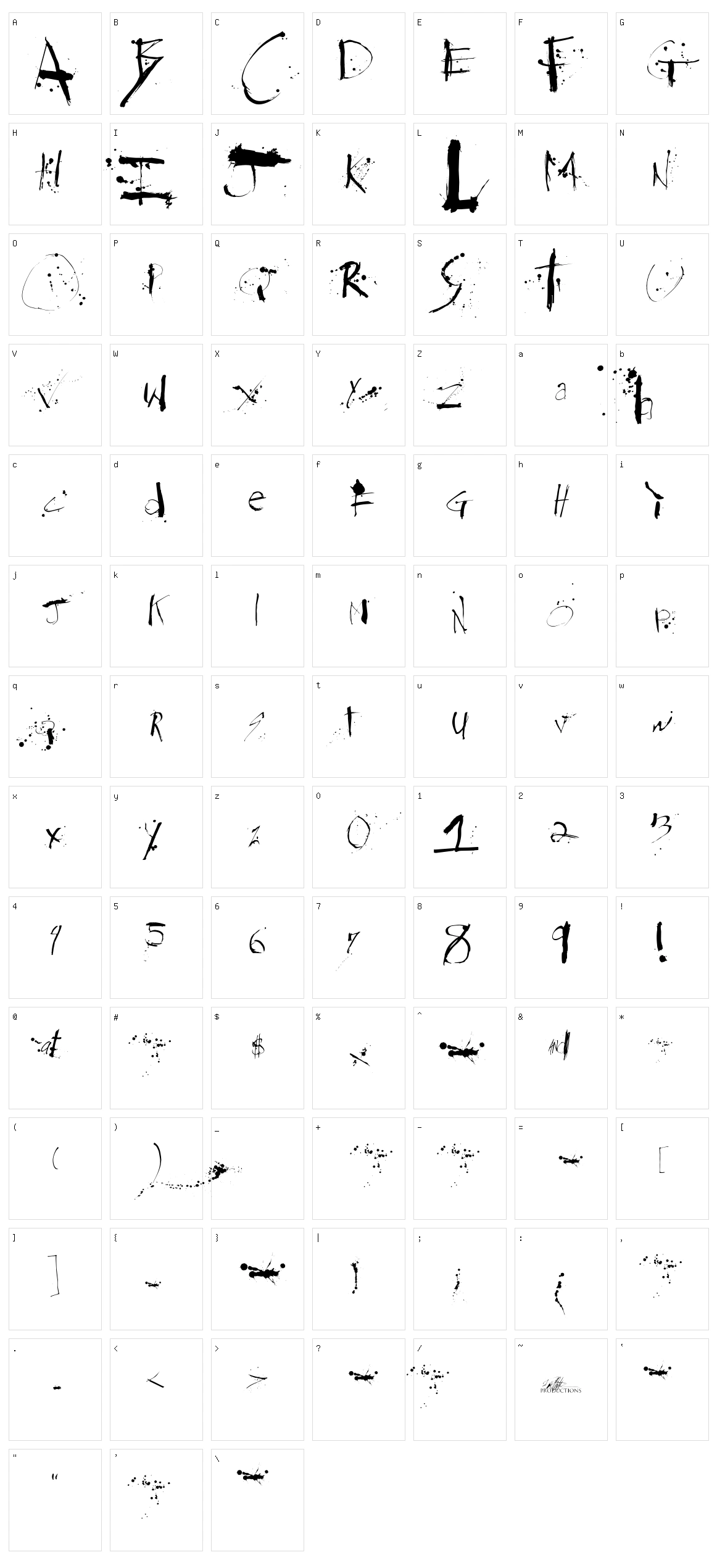
Research and Design by Foxx Nolte
This font is based on the inimitable style of Ralph Steadman,
but of course I tried to imitate it anyway. This font includes
several 'splatter' effects that are outlined below to help new users
most take advantage of this typeset's unique look. All art is
done by me on Drawing paper with black ink and pen nubs of varying
types.
# ' * + - / all create type one splatters
= ? \ ^ ` { } all create type two splatters
to underline any word or phrase, press _ after it.